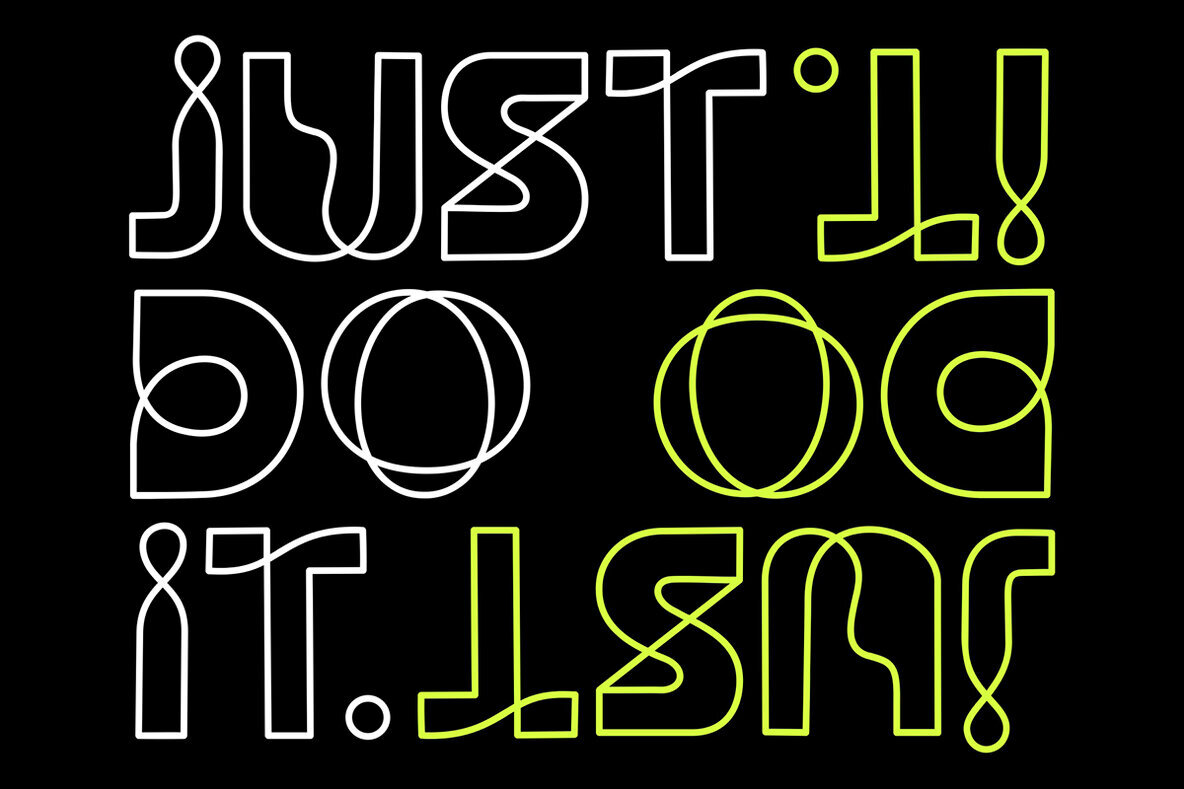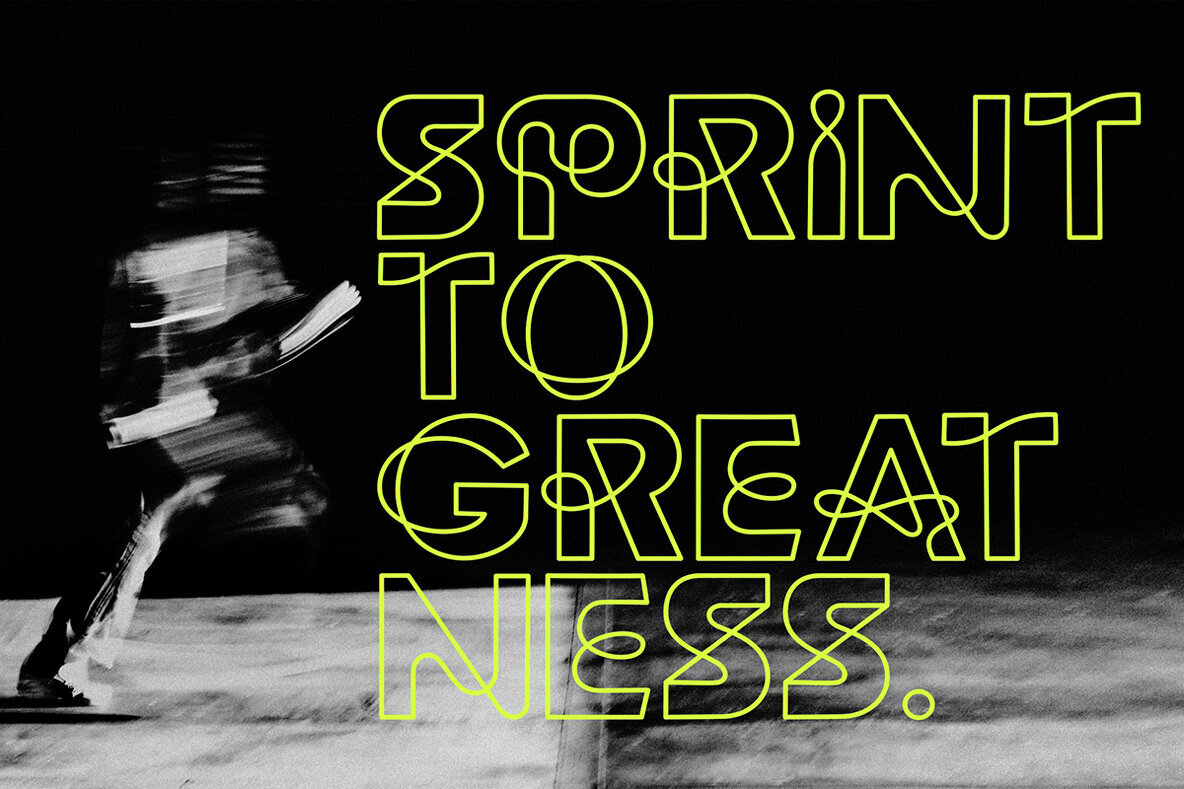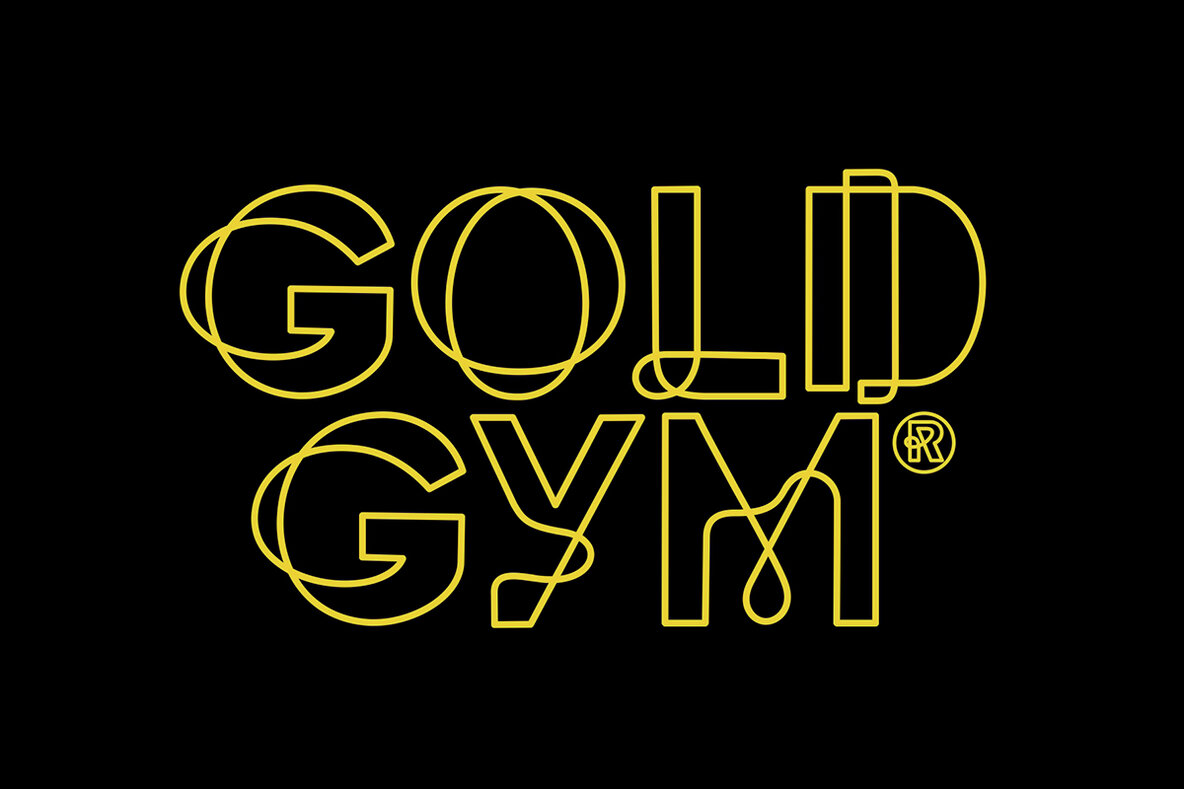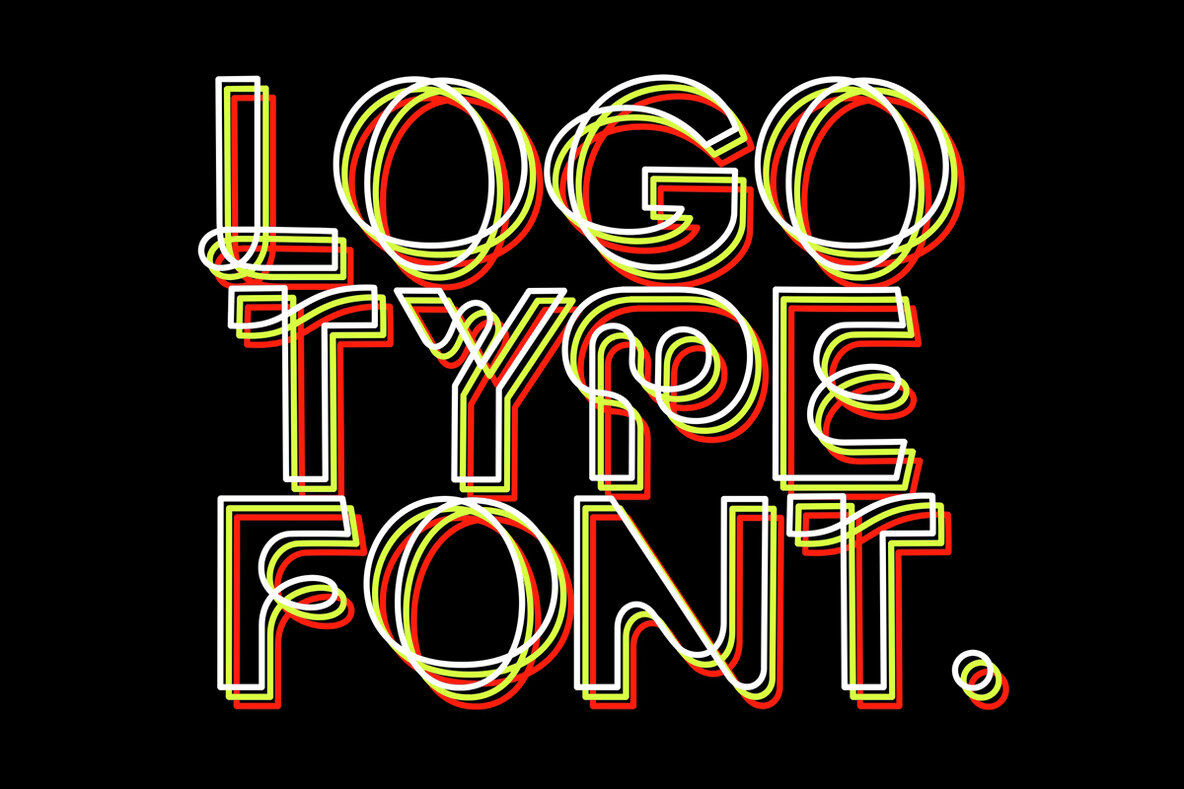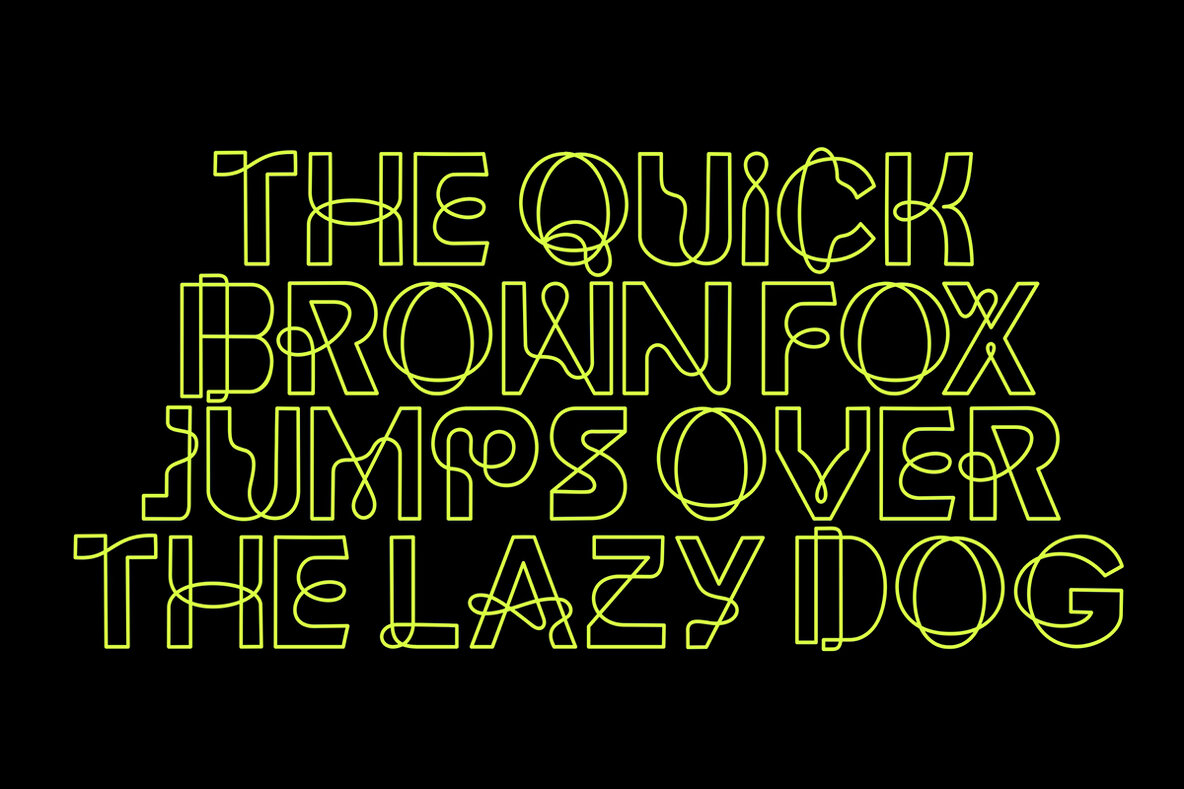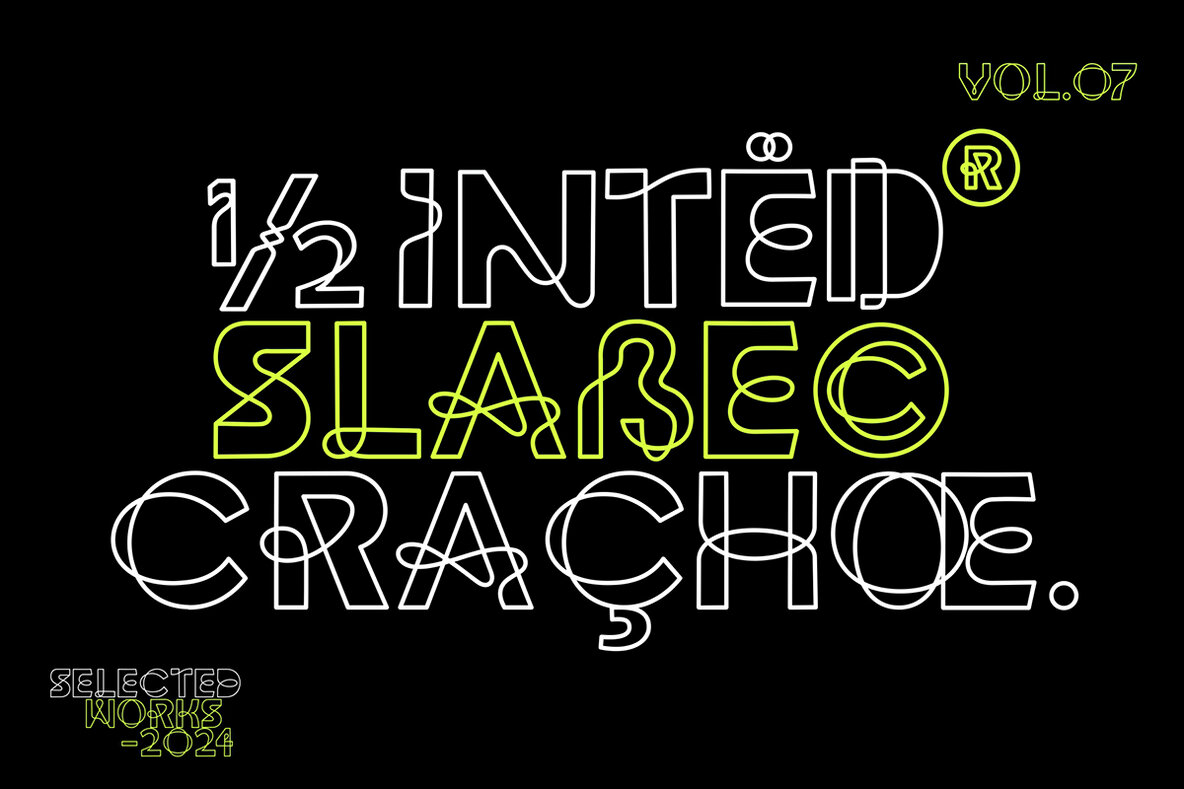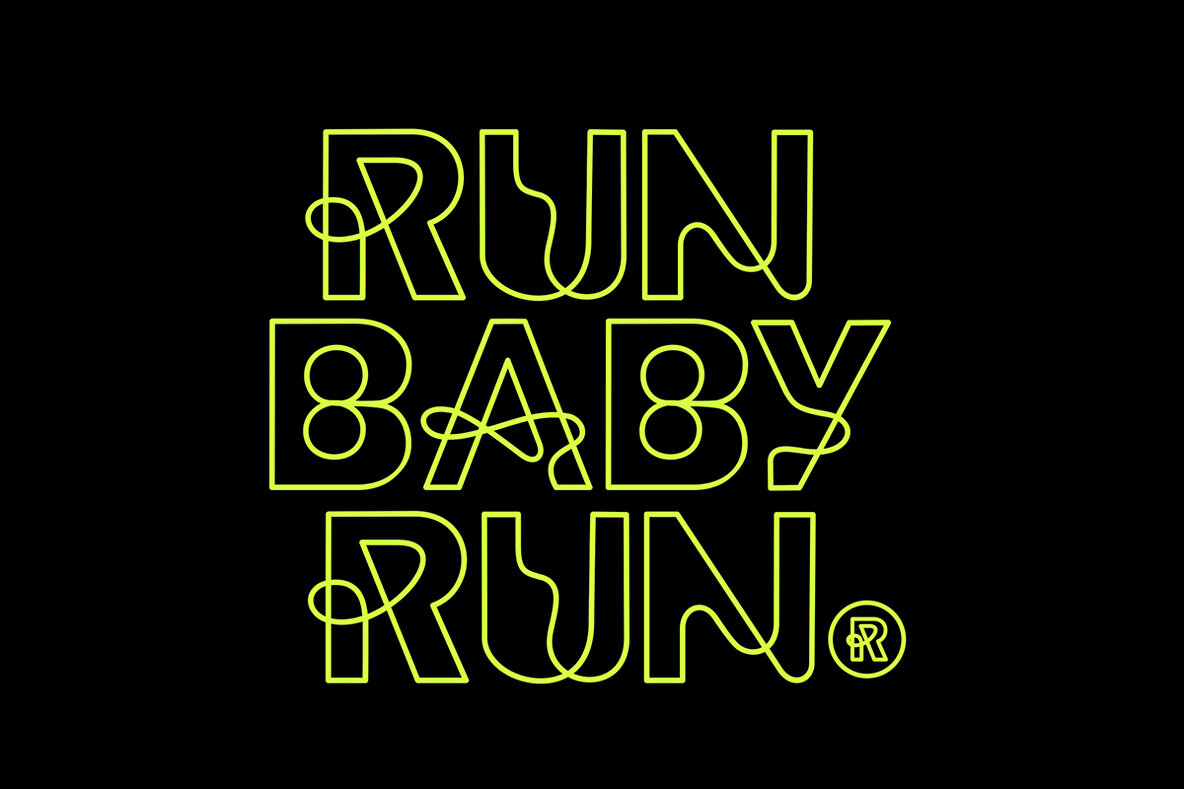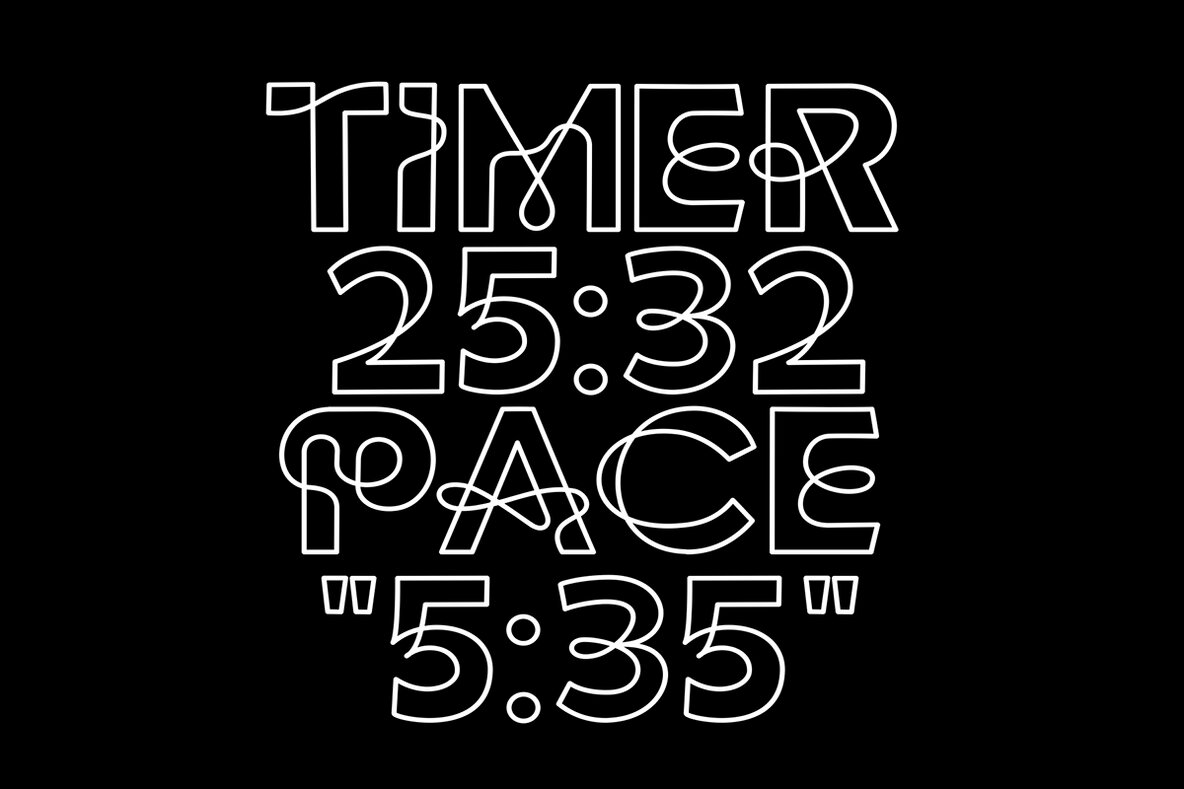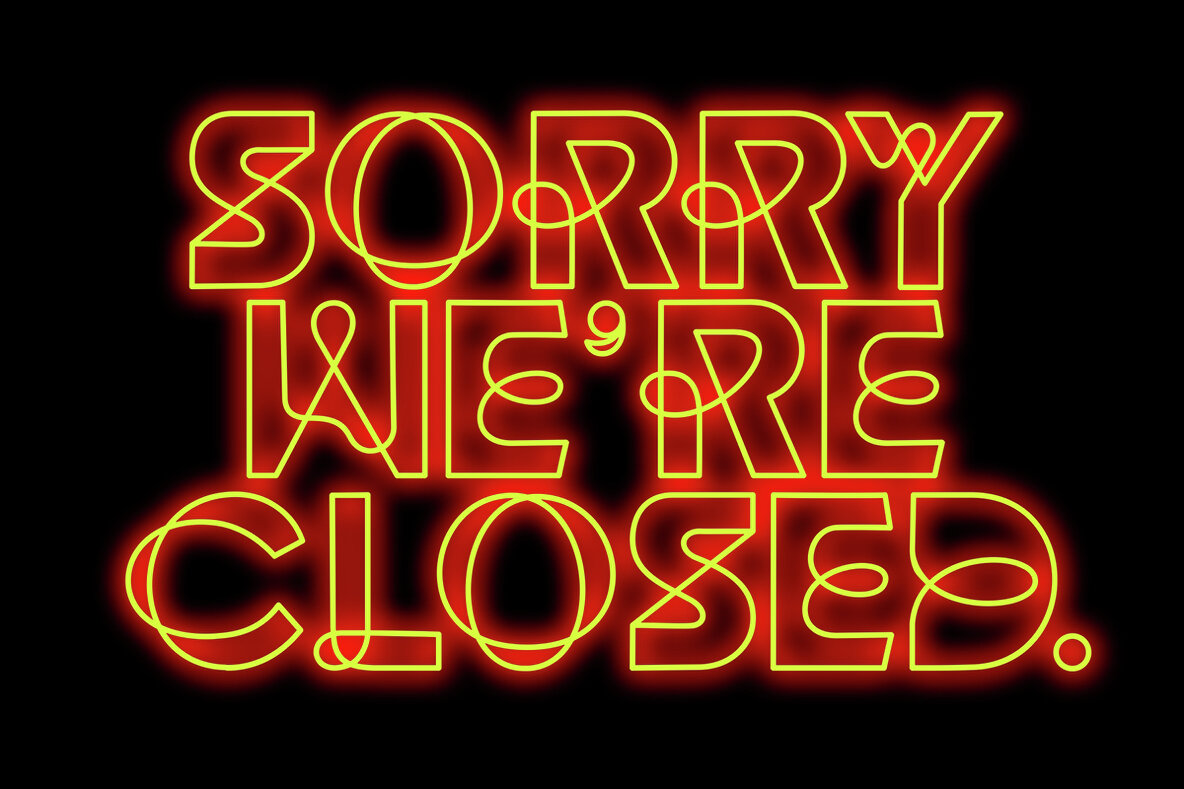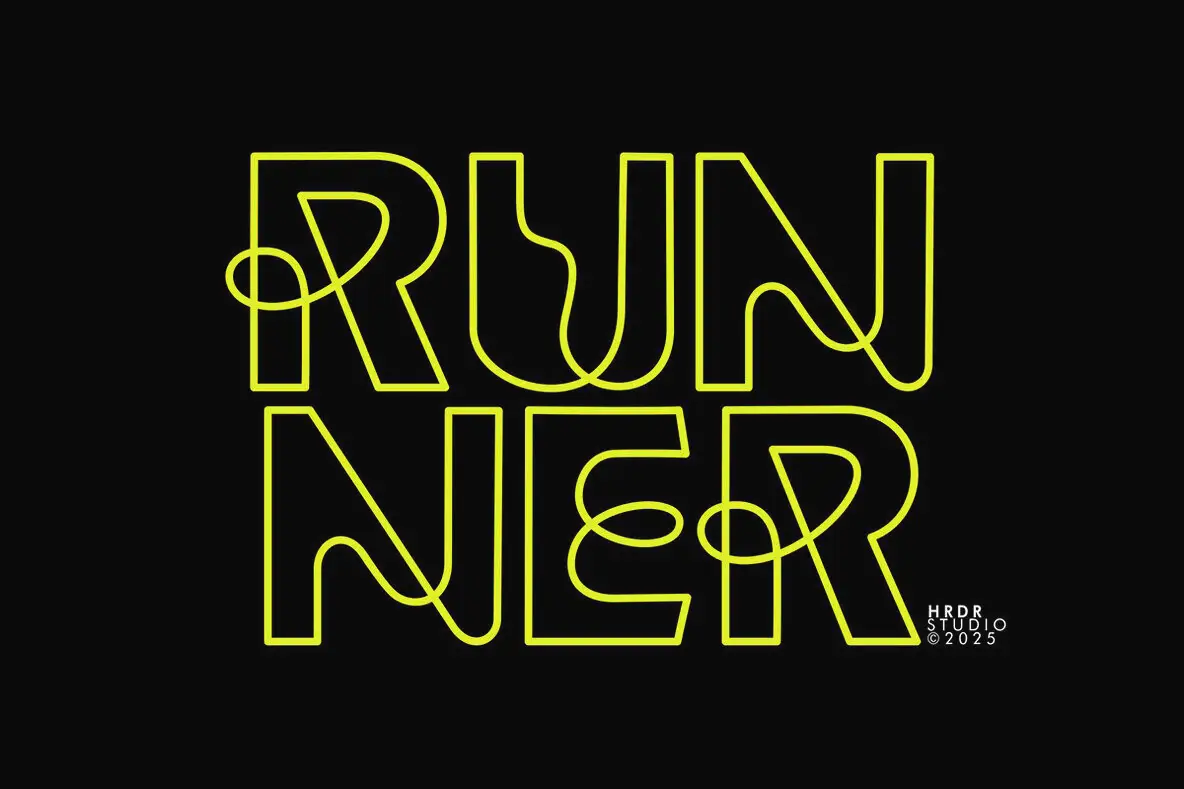
Runner Font
Runner
Runner is a distinctive typeface that stands out with its uninterrupted geometric lines. This modern font offers versatility for numerous design projects, adding a contemporary touch to any creative endeavor.Runner: Unique Continuous Line Font